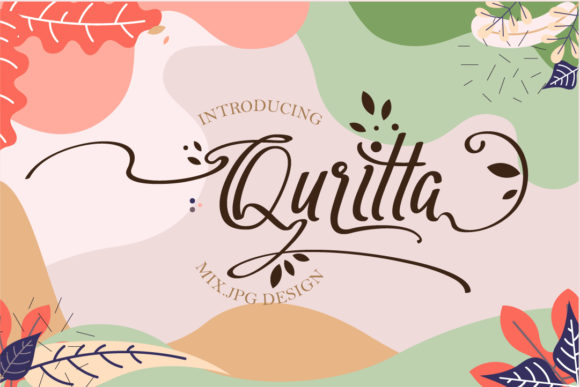
Step into the enchanting world of Quritta, an extraordinary script font that captivates the hearts of all who behold it. This winsome creation by Authentype exudes a charm that is both timeless and endearing, inviting you on a journey of creative expression. With its delicate strokes and enchanting curves, Quritta dances across the page, leaving a trail of elegance and grace.
Immerse yourself in the joy of writing with Quritta, a script font that is as versatile as it is captivating. Whether you're designing an invitation for a special occasion, crafting a personal journal, or simply adding a touch of elegance to your digital projects, Quritta rises to the challenge with ease. Its flowing lines and graceful swashes lend an air of sophistication to any project, transforming the ordinary into the extraordinary.
But Quritta is more than just a pretty face. It is a font that speaks to the heart, evoking emotions and captivating readers with its undeniable charm. Its unique character shines through in every letter, adding a touch of whimsy and delight to your creations. Allow Quritta to be your muse, inspiring you to create works of art that touch the soul and leave a lasting impression.
So, embrace the beauty of Quritta, and let your imagination soar. Discover the endless possibilities that await you with this captivating script font. From heartfelt letters to stunning social media posts, Quritta is your perfect companion, adding a touch of magic to every project. Experience the joy of writing with Quritta, and see your words come to life in a way that you never thought possible.